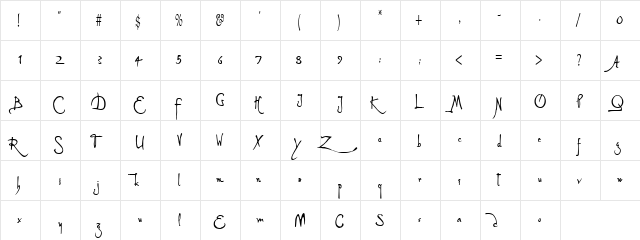
Alleghieri Regular
Design Context for Alleghieri Typeface
Alleghieri is a composed and adaptable typeface that performs quietly and consistently across a wide range of design contexts.